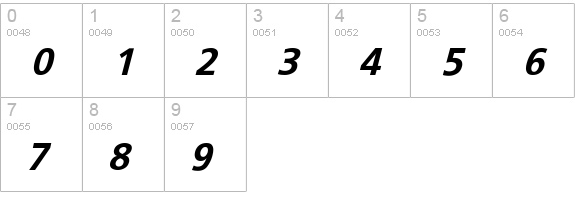
SchranerObl-Bol Font Details
Introducing SchranerObl-Bol, a stunning typeface that effortlessly combines elegance with modernity. This font is the epitome of sophistication, making it perfect for a wide range of design projects. Whether you're creating a logo, designing a website, or crafting a captivating poster, SchranerObl-Bol is sure to leave a lasting impression. This font features clean lines and precise curves, giving it a polished and refined appearance. Its bold weight adds a touch of strength and confidence to any design, making it stand out from the crowd. SchranerObl-Bol's unique letterforms are meticulously crafted, resulting in a harmonious balance between legibility and artistic expression. One of the most remarkable features of SchranerObl-Bol is that it is available for free download at FontsMarket.com. Yes, you read that right - this exceptional font can be yours without any cost. With just a few clicks, you can enhance your creative projects with the sheer beauty of SchranerObl-Bol, without breaking the bank. Not only does SchranerObl-Bol offer stunning aesthetics, but it also provides exceptional versatility. Its extensive character set includes uppercase and lowercase letters, numerals, punctuation marks, and special symbols, ensuring that you have all the tools you need to bring your vision to life. Additionally, its wide language support allows you to communicate effectively in various languages across the globe. Say goodbye to ordinary and embrace the extraordinary with SchranerObl-Bol. Download this remarkable font today and unleash your creativity like never before. Remember, it's freely available at FontsMarket.com, so don't miss out on this incredible opportunity to elevate your designs to new heights.